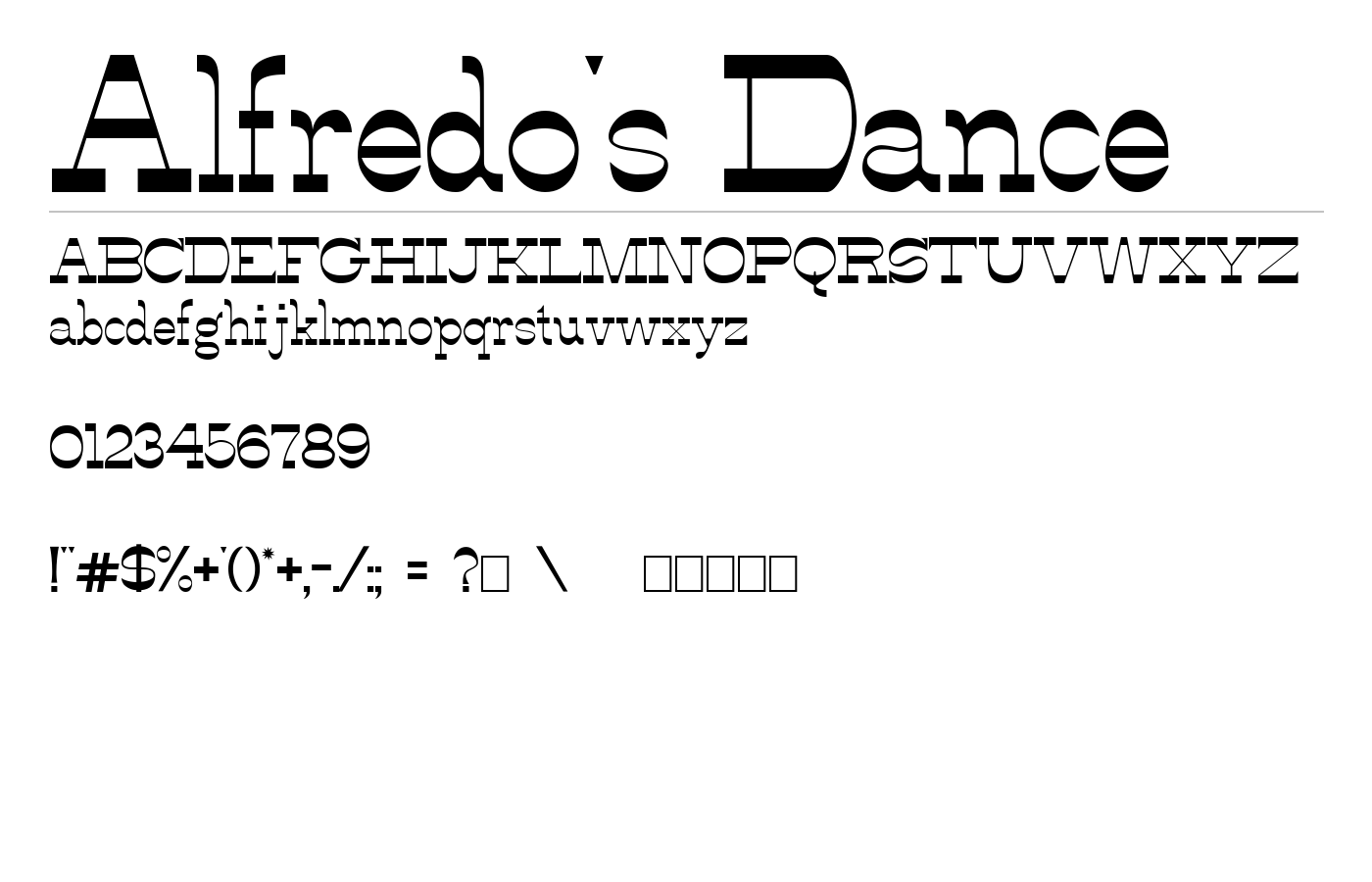
Alfredo's Dance is a striking serif font with a blend of bold and delicate strokes that create a lively and elegant rhythm. Its high contrast, geometric shapes, and distinctive letterforms give it a vintage yet modern feel, making it a perfect choice for eye-catching logos, headlines, and stylish editorial designs that seek a sophisticated, artistic vibe.
Alfredo's Dance Font
About Alfredo's Dance Font